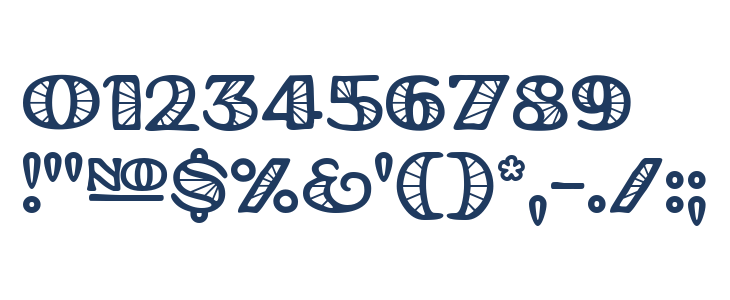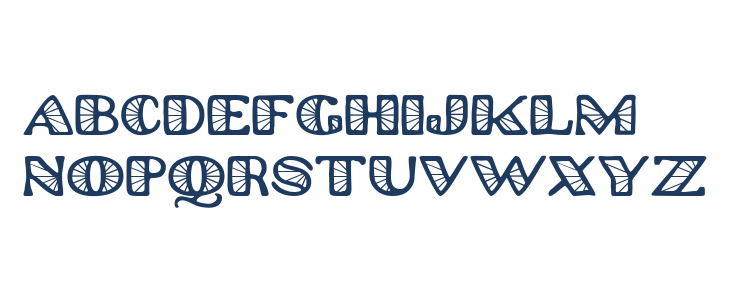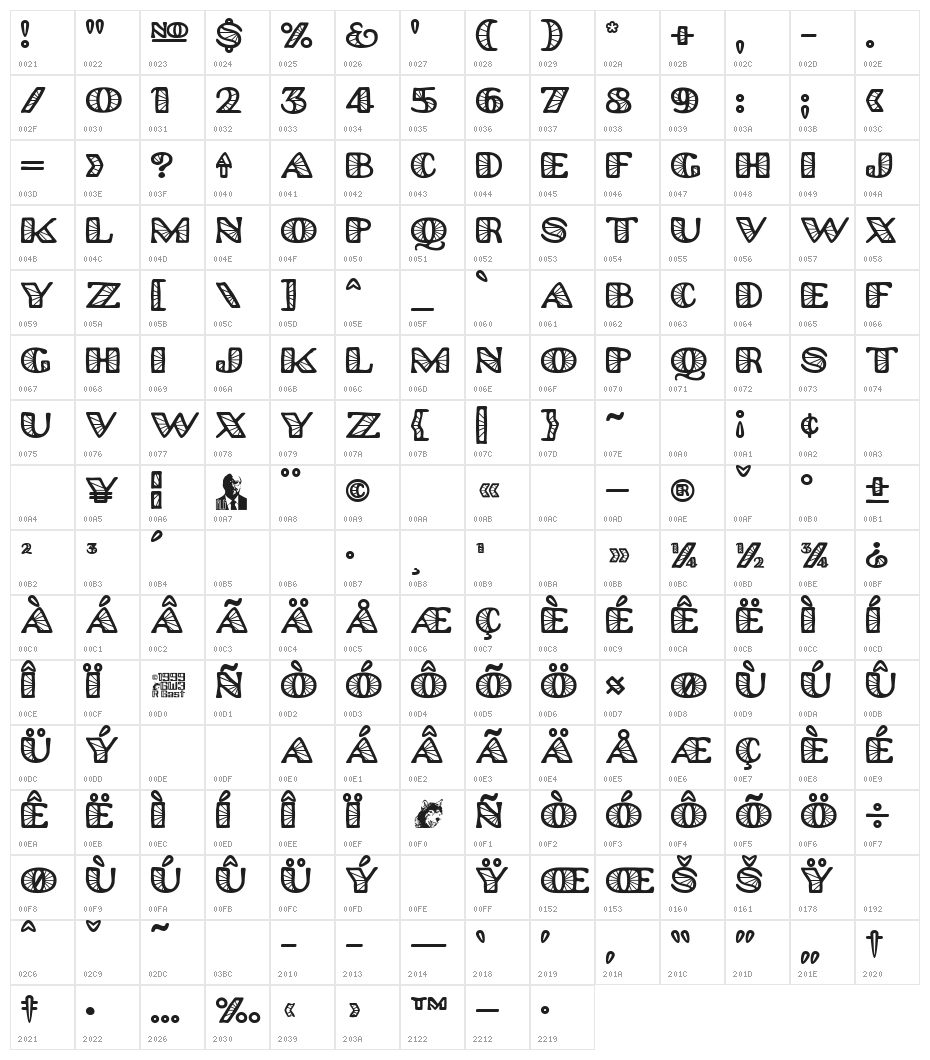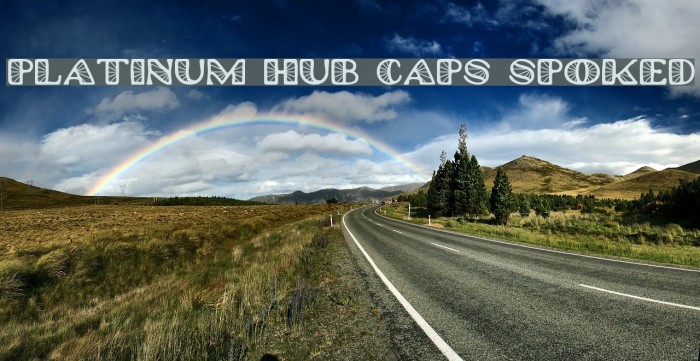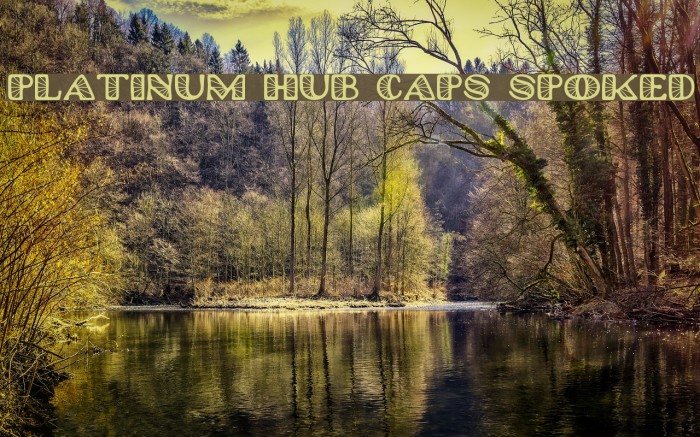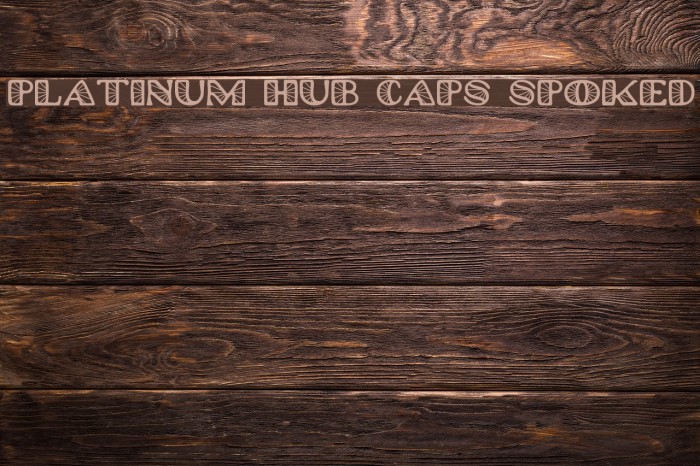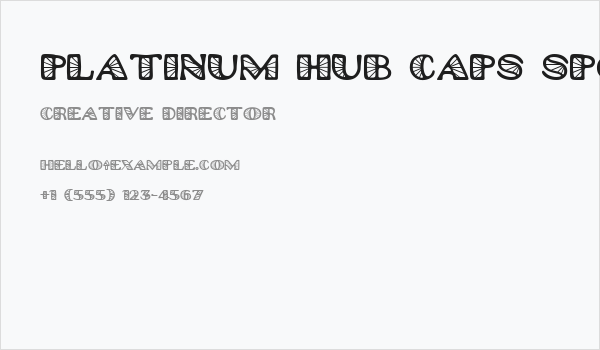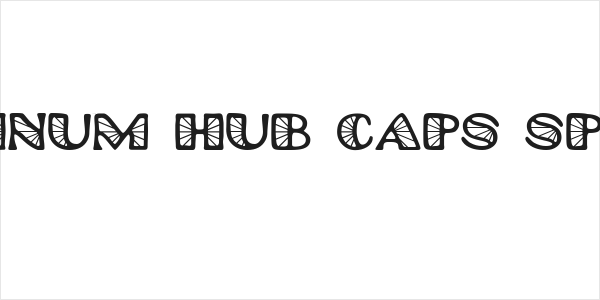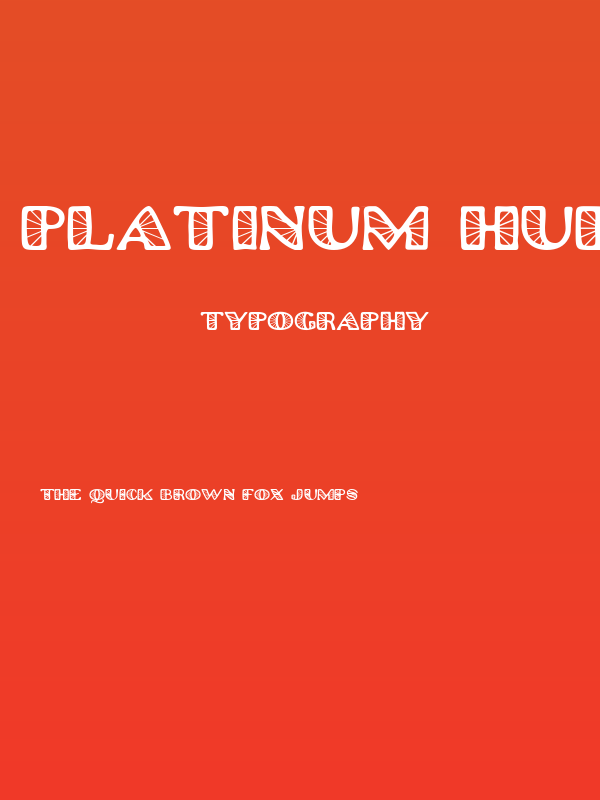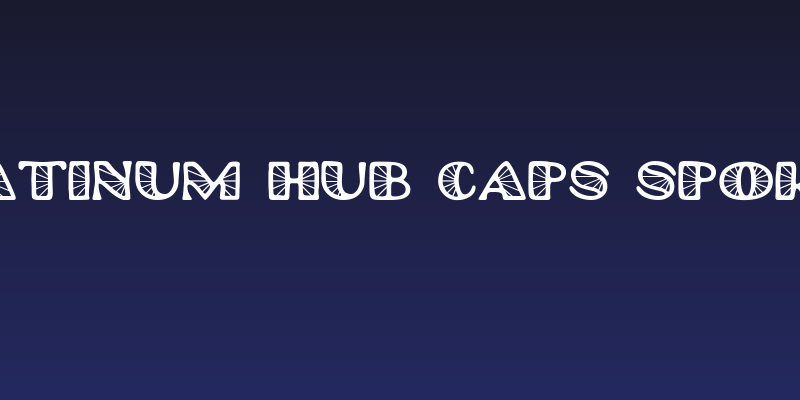
Platinum Hub Caps Spoked Font
Platinum Hub Caps Spoked Description
This font features a unique and decorative style with a spoked design within each character, reminiscent of vintage hubcaps. The uppercase and lowercase letters maintain a consistent pattern, giving the font a cohesive look. The numbers and special characters also follow this intricate design, making it suitable for eye-catching displays. The bold outlines and detailed interior lines create a striking contrast, enhancing its visual appeal. This font is perfect for projects that require a retro or automotive theme, adding a touch of nostalgia and flair.
| Proposed Projects | Ideal for vintage posters, automotive branding, retro-themed events, and decorative signage. |